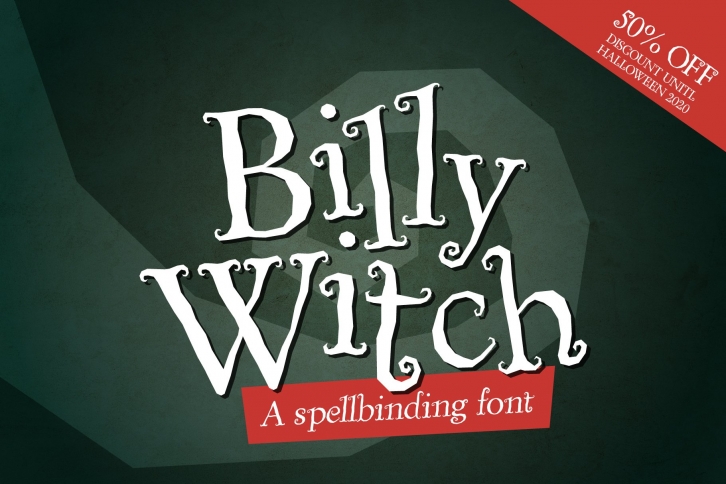
Billy Witch - a spellbinding swirly serif font Download
Billy Witch is a trendy and unique font with an authentic style. It was designed by Little Type Factory and it's a great choice for creative people who need such a font. It was released on September 23, 2020 and the file size is 11.88 MB. Billy Witch will add an organic vibe to any design idea!